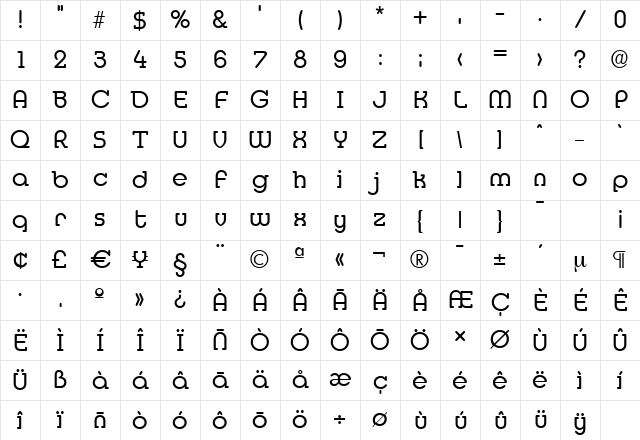
MexicoSerial Regular Free Font
MexicoSerial Regular
MexicoSerial Family
Complete MexicoSerial Regular glyph index. Displaying only characters natively supported by MexicoSerial Regular font.
Design Context for MexicoSerial
MexicoSerial is a composed and adaptable typeface that performs quietly and consistently across a wide range of design contexts.